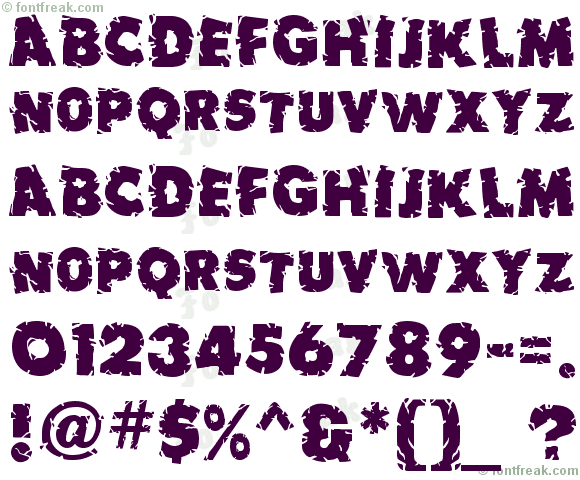
Earthquake MF
Earthquake MF, designed by Richard Mueller in 1993, is a distinctive display font that captures attention with its unique style. This freeware font features irregular, bold letterforms that embody a sense of movement and disruption, reminiscent of the seismic activity its name suggests. The strokes are thick and uneven, creating a striking contrast that draws the eye. The spacing between the characters is tight, enhancing the font's impactful presence. The decorative elements of the font, such as the jagged edges and fractured appearance, evoke a sense of chaos and energy, making it ideal for projects that aim to convey excitement or urgency.
The Earthquake MF font is well-suited for a variety of creative applications. Its bold and dynamic design makes it perfect for movie posters, especially in the action or thriller genres, where it can effectively convey tension and drama. Additionally, it can be used in promotional materials for events that need to stand out, such as music festivals or adventure sports competitions. The font is also a great choice for graphic designers looking to add a unique flair to brand identities or advertising campaigns. Small business owners can utilize Earthquake MF in signage or menu designs to create a memorable visual impact. Content creators can employ it in social media graphics to capture their audience's attention.
Overall, Earthquake MF is a standout font that offers a fresh, engaging look for anyone in need of an eye-catching typeface. Its playful yet bold design not only makes it versatile for various applications but also ensures that any message stands out. For those looking to enhance their projects, the Earthquake MF font free download is an excellent choice to consider.